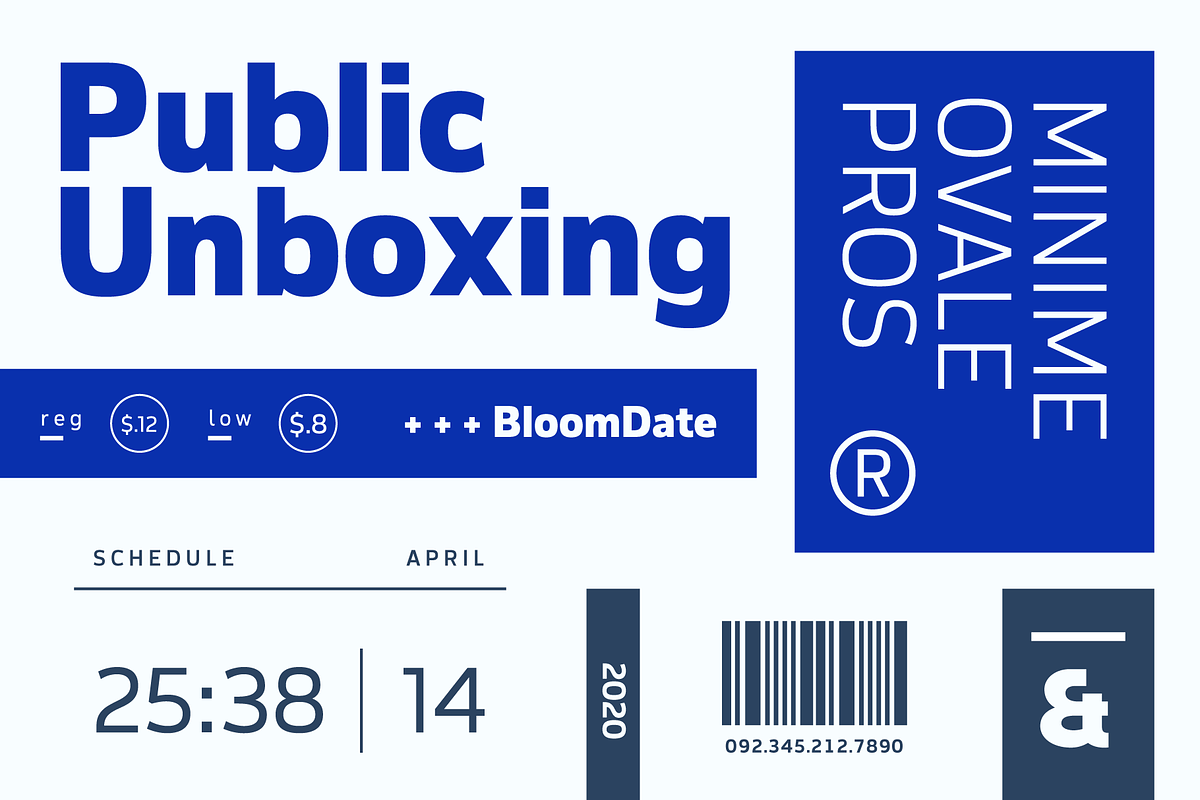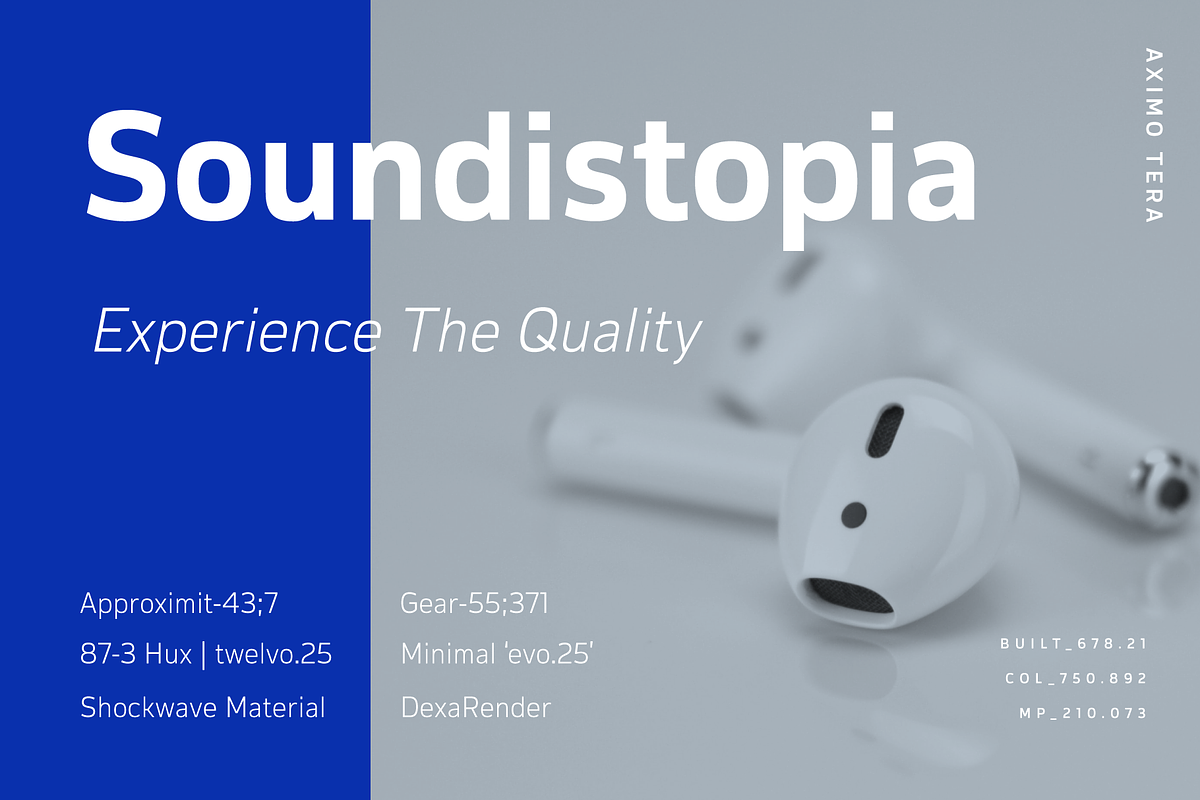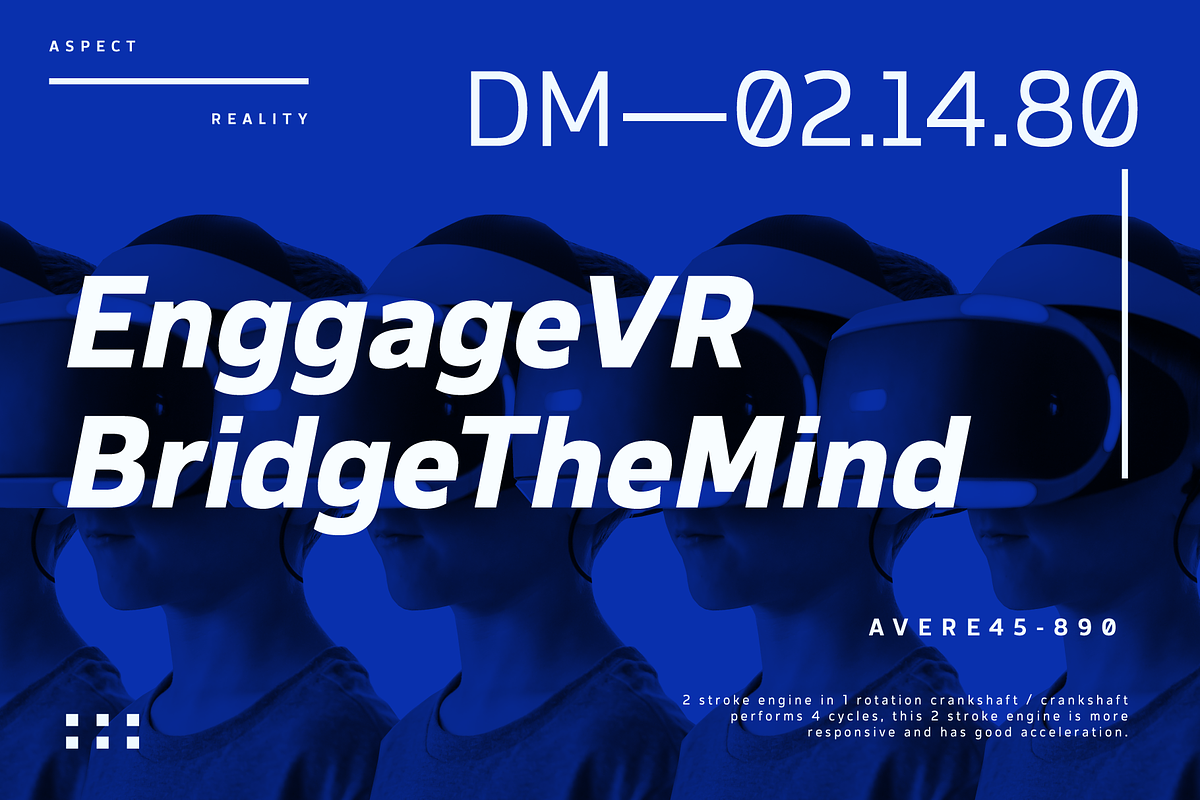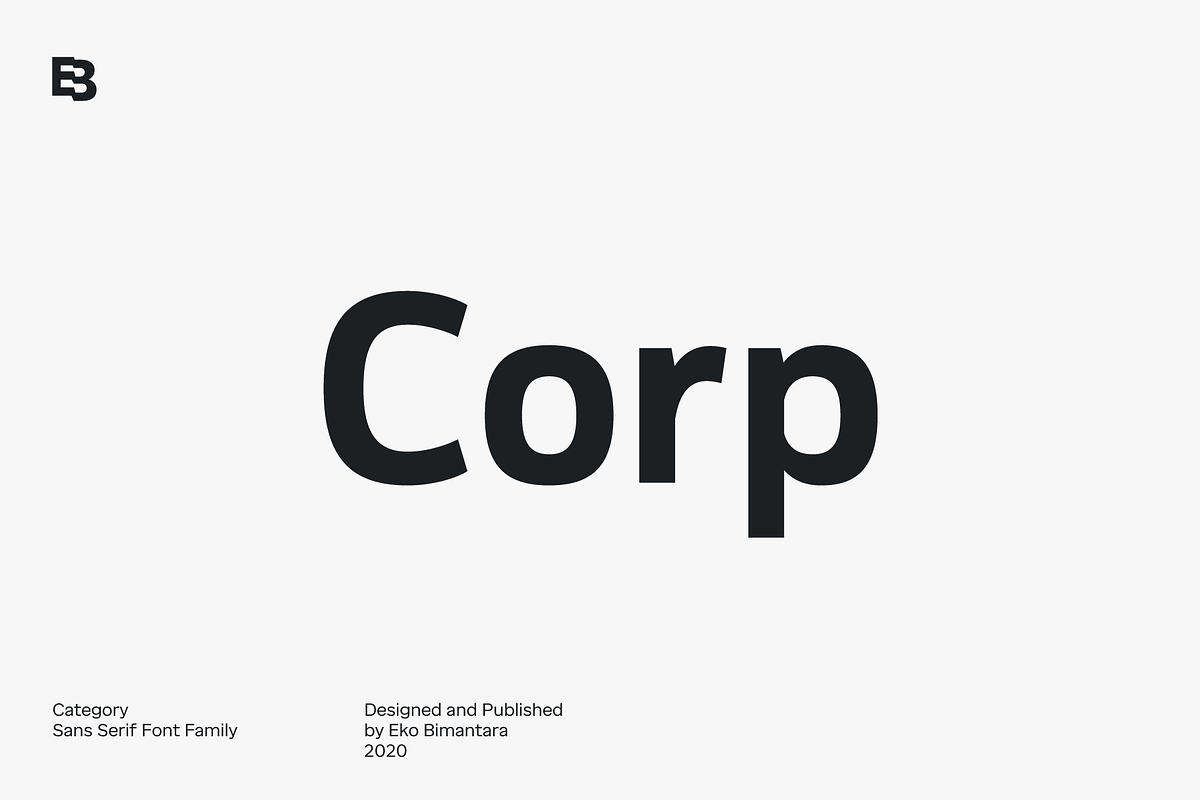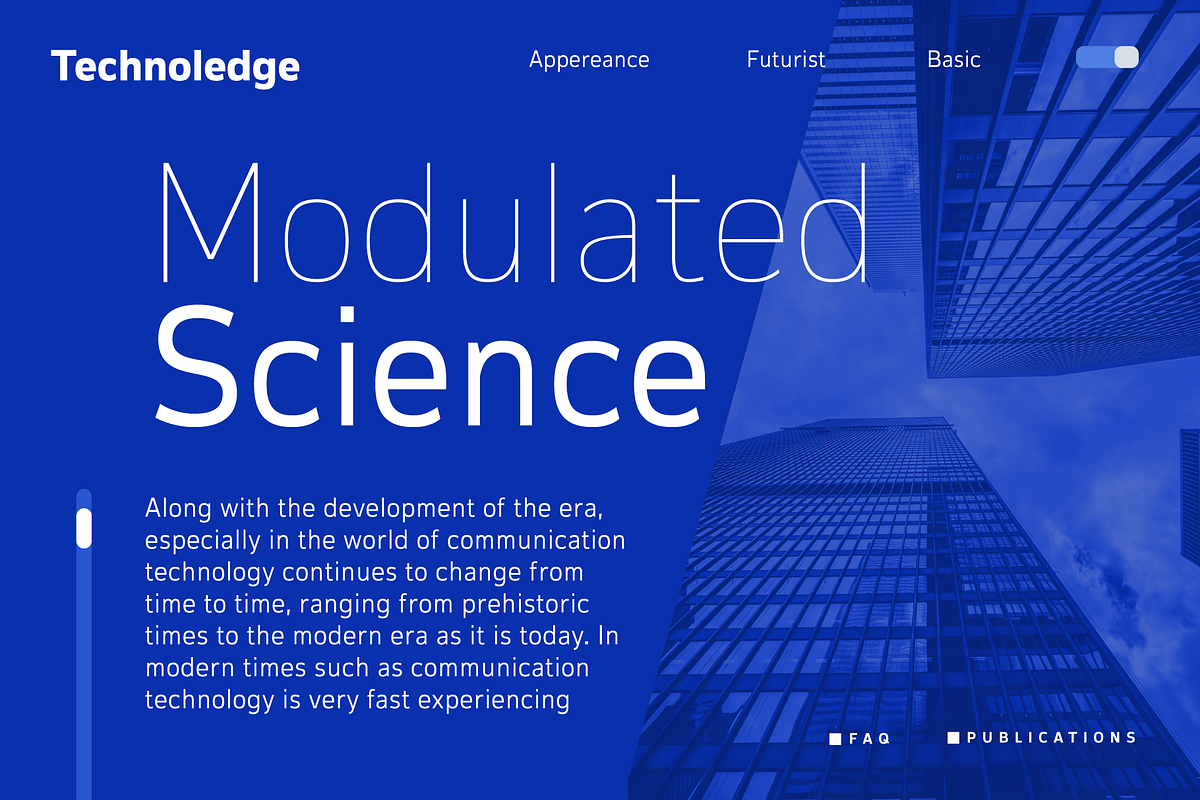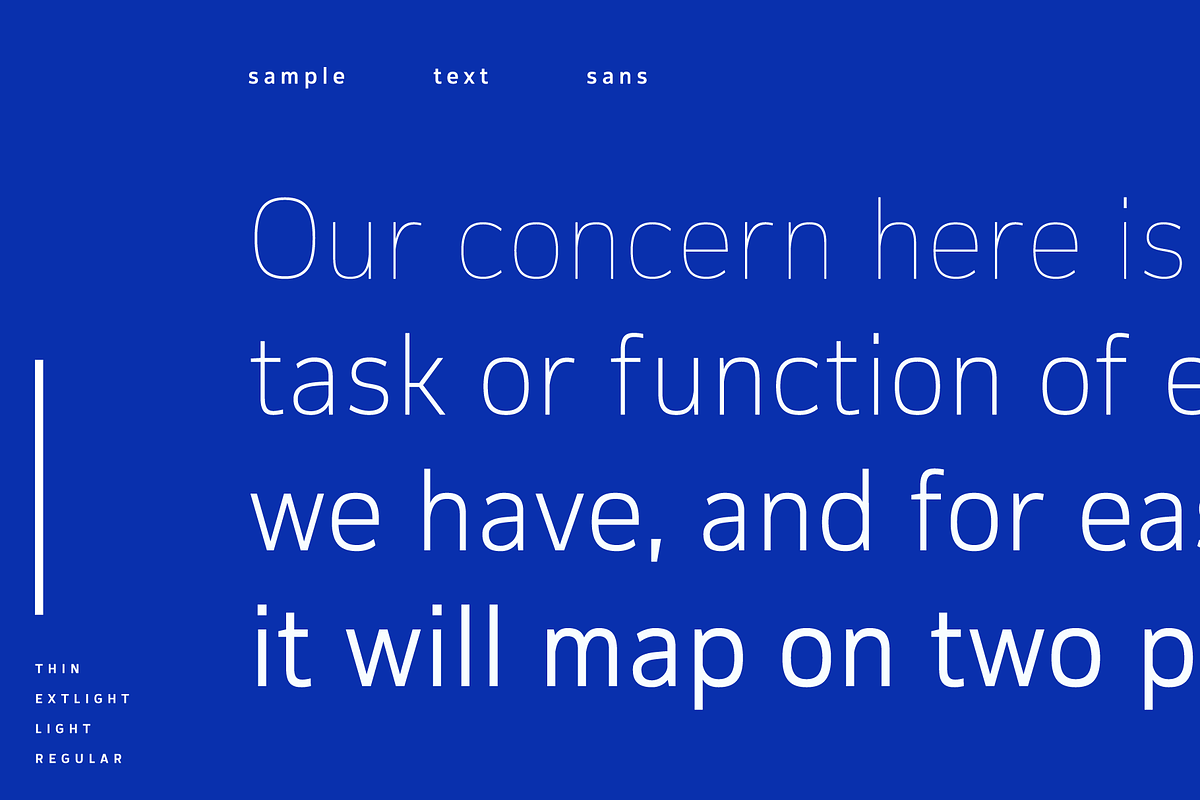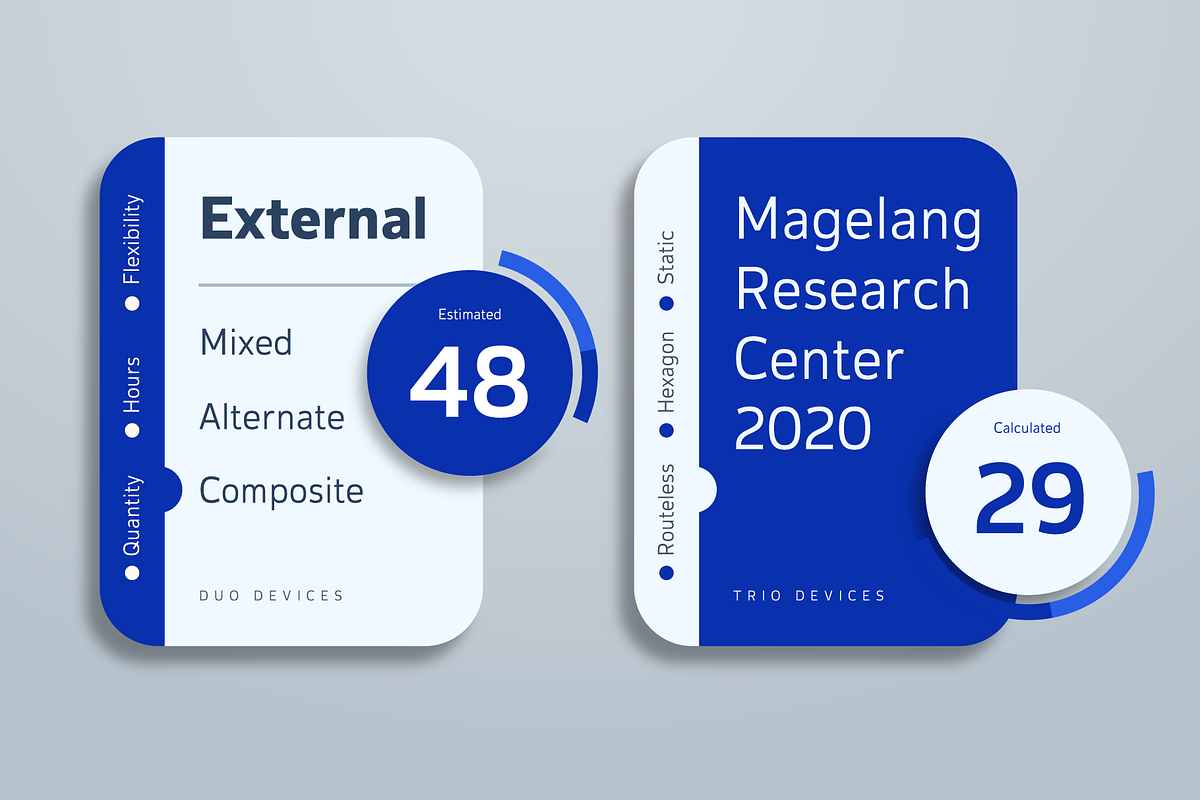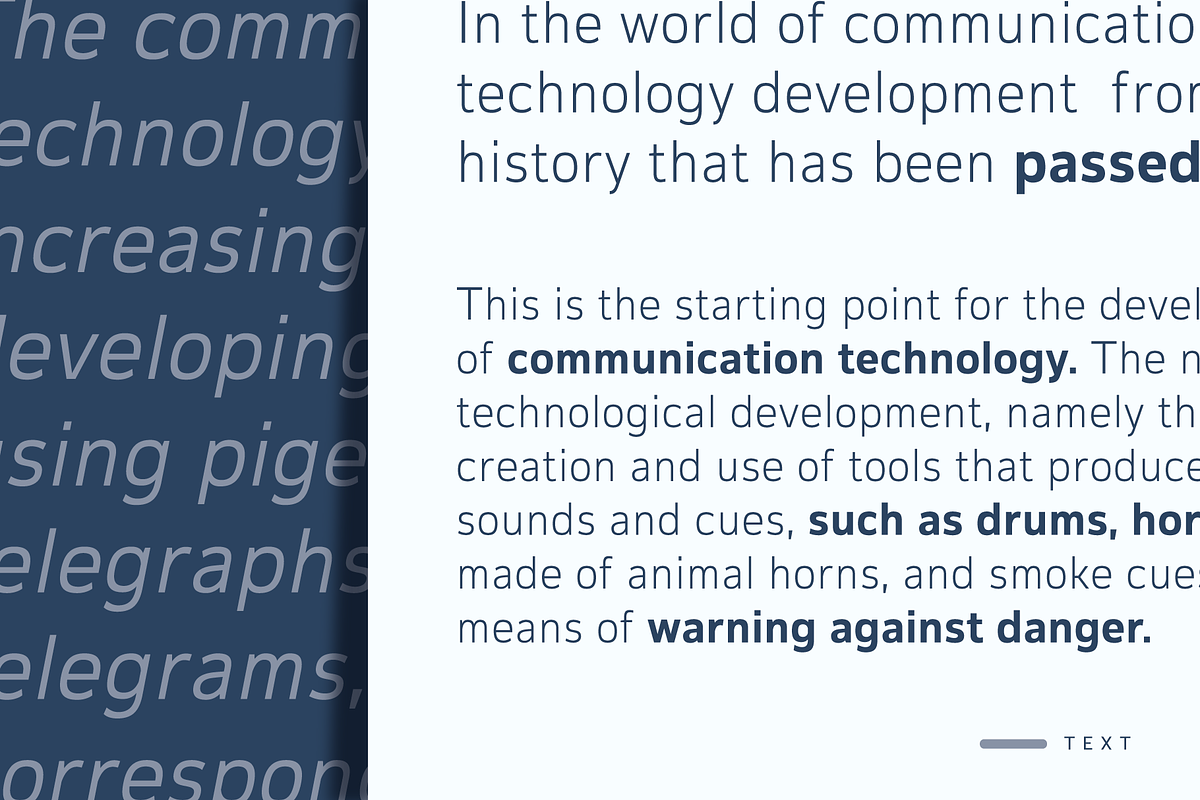
EB Corp
EB Corp designed to be fit for corporate nuances. its letterforms shaped in tune with technological feels. Its shown simplicity, minimal stroke contrast, moderate spacing. Its consist of 18 styles from Thin to Black, contain 470+ glyphs that support broad latin language, contain variation of linning figures, and some alternates glyphs.